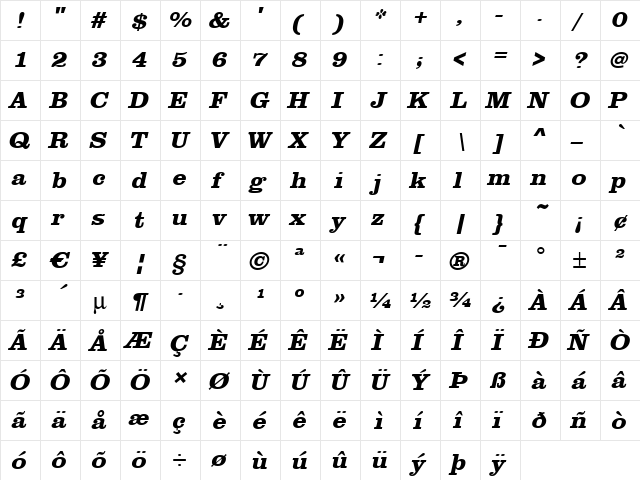
PaulineBeckerWide Bold Italic
Design Context for PaulineBeckerWide Typeface
PaulineBeckerWide is a composed and adaptable typeface that performs quietly and consistently across a wide range of design contexts. Its italic angle brings a sense of urgency and motion to the letterforms. Its bold stroke weight gives it real presence on the page.
Pro Tip: Use PaulineBeckerWide for emphasis, pull quotes, and subheadings where its slanted energy can add rhythm to the layout.